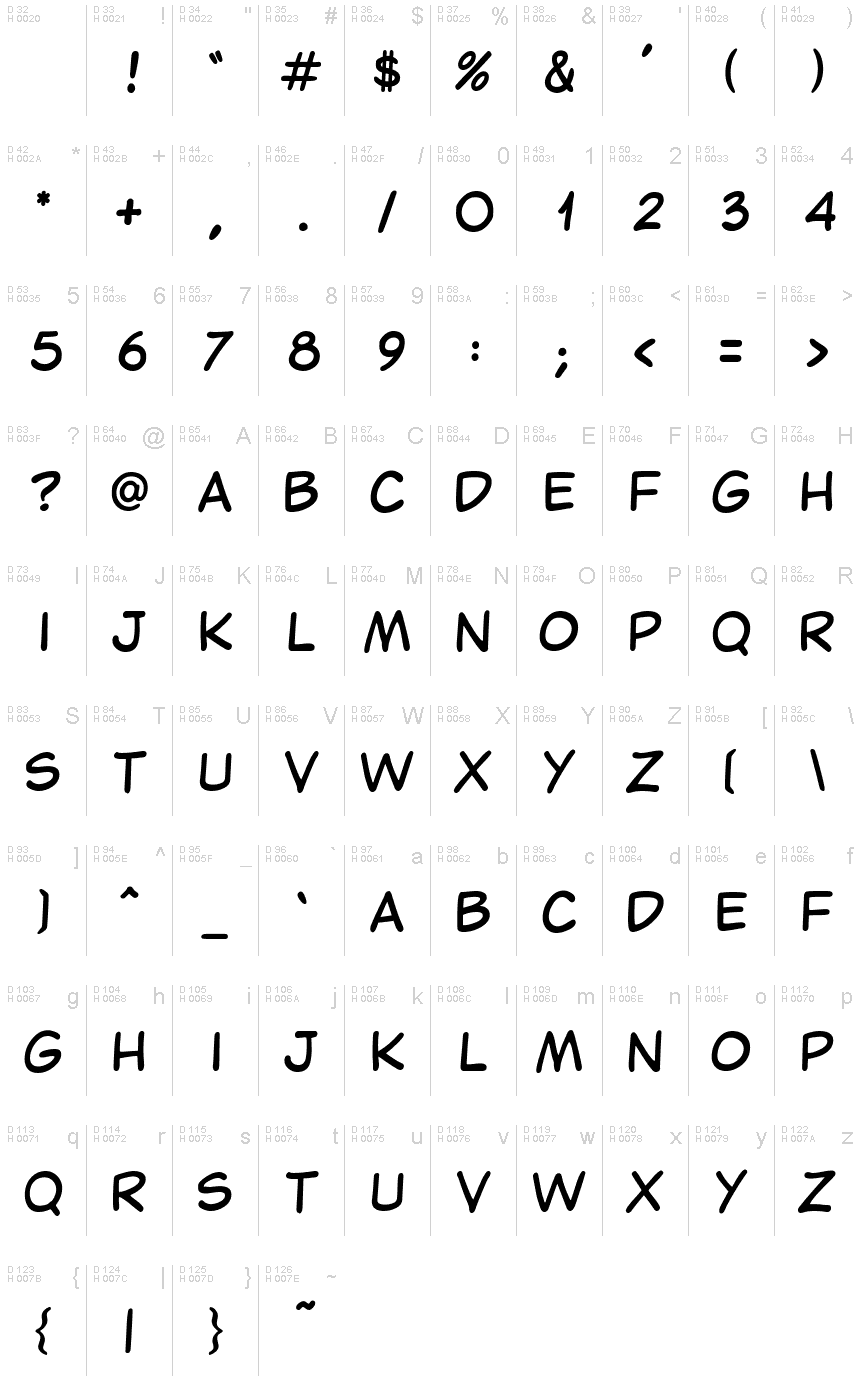
IBS Cartooning
IBS Cartooning, created by the talented designer Ezel Burniest, is a playful and vibrant display font that brings a fun and lighthearted touch to any project. With its semi-light weight and comic style, this font is perfect for children's books, comics, animations, and even branding projects that aim to add some personality and humor. Whether you're looking to create a memorable logo or eye-catching title for your next project, IBS Cartooning will surely deliver. Its unique style and attention-grabbing design make it an excellent choice for any creative looking to add some fun to their work!